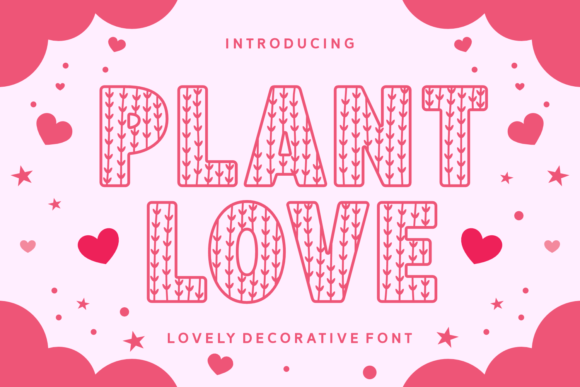
Embark on a font journey that blossoms with charm and whimsy—introducing Plant Love Font, a decorative font where every character blooms with captivating beauty. Inspired by the tender touch of nature, this font is a love letter to the wonders of the plant kingdom.
Immerse yourself in the intricate details of each letter, hand-crafted with delicate heart doodles. These charming embellishments add a touch of enchantment to your designs, making them irresistible to the eye.
With Plant Love Font, you hold the key to unlocking a world of creative possibilities. Enchant your Valentine's Day invitations with heartfelt messages, adorn greeting cards with blooming expressions of love, and let your fabric prints burst with floral elegance. Create posters and flyers that come alive with vibrant botanical motifs, captivating the hearts of your audience.
Step into a realm where words dance with grace and romance. Plant Love Font is a font of love, a font of life. It's the perfect companion for expressing your deepest emotions, whether through personal letters, heartwarming poems, or captivating stories. Let your words blossom with beauty, and let your designs radiate with the warmth of a thousand blooming hearts.
Plant Love Font—the font that captures the essence of nature's tender embrace, ready to transform your creative visions into captivating works of art. Embrace the magic of Plant Love Font today and let your designs flourish with love and beauty.